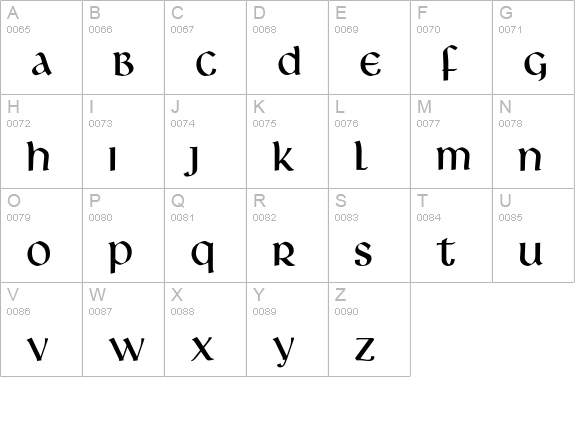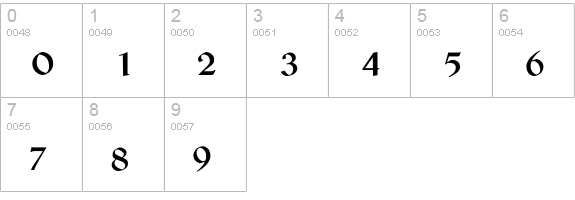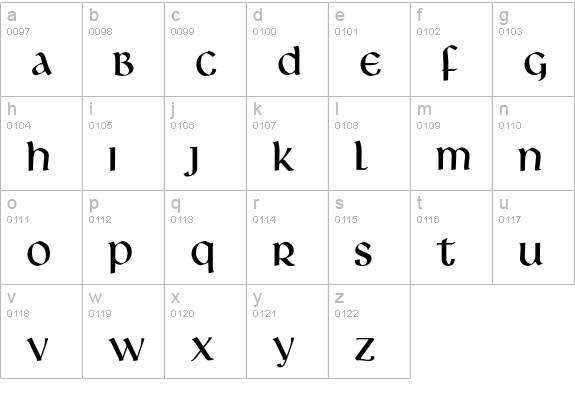
Robespierre Font Details
Introducing Robespierre font, a sleek and modern typeface that exudes sophistication and elegance. With its clean lines and stylish curves, Robespierre is perfect for adding a touch of class to any design project. This versatile font is suitable for a wide range of applications, from branding and advertising to editorial and packaging. What sets Robespierre apart is not only its striking aesthetics, but also the fact that it is available for free download at FontsMarket.com. That's right, you can elevate your designs with this high-quality font without breaking the bank. Whether you're a graphic designer, a blogger, or a business owner looking to enhance your visual identity, Robespierre is a fantastic choice that won't cost you a dime. Don't miss out on the opportunity to enhance your projects with the elegance and sophistication of Robespierre font. Download it for free today at FontsMarket.com and see the difference it can make in your designs.